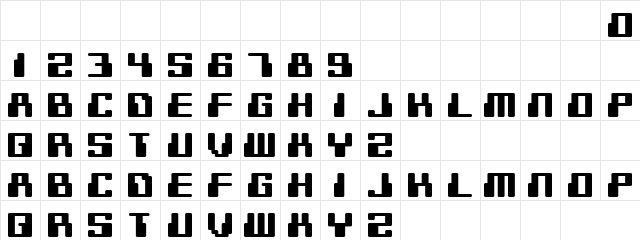
Sigma Distrot Regular
Design Context for Sigma Distrot Typeface
Sigma Distrot is a composed and adaptable typeface that performs quietly and consistently across a wide range of design contexts.